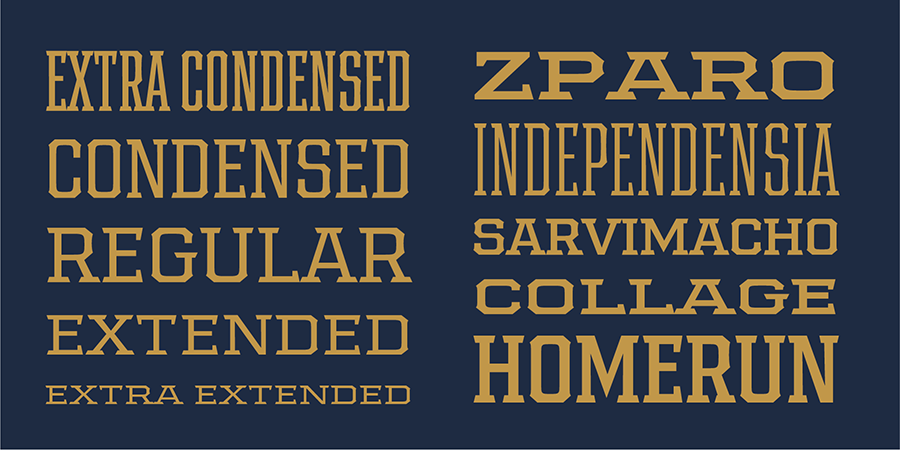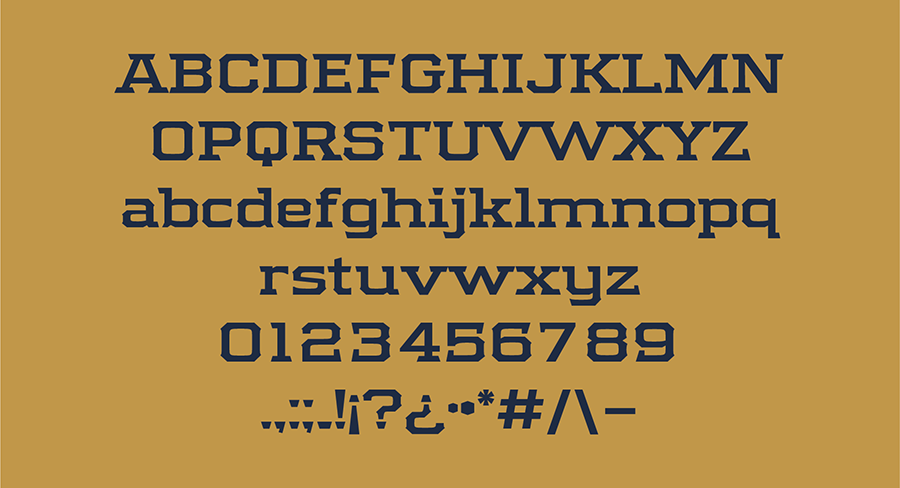
Samton Free Font Family
Here comes the latest fine work by Ilham Herry, Samton Free Font Family! The family comes with 15 styles, with Basic Latin character, Samton was created when I practiced about axes coordinate. This font has a weight and width axes. with 4 masters and interpolated to 15 fonts. it’s free for commercial use.